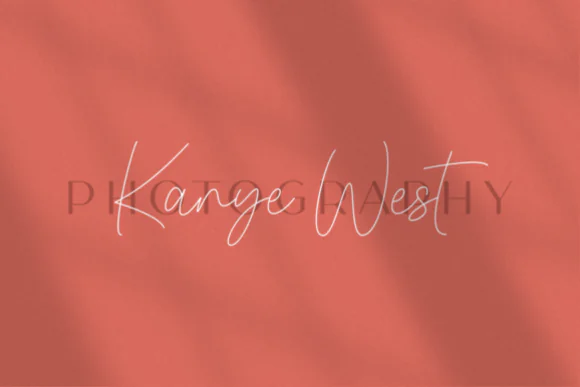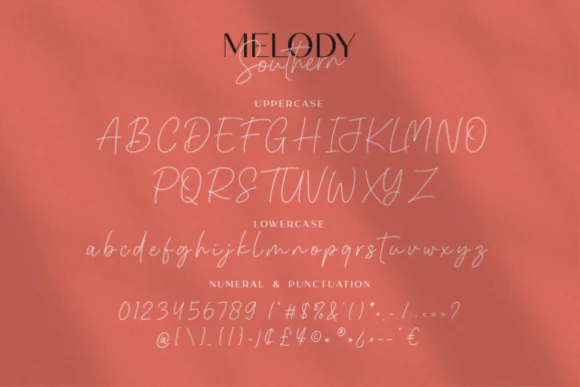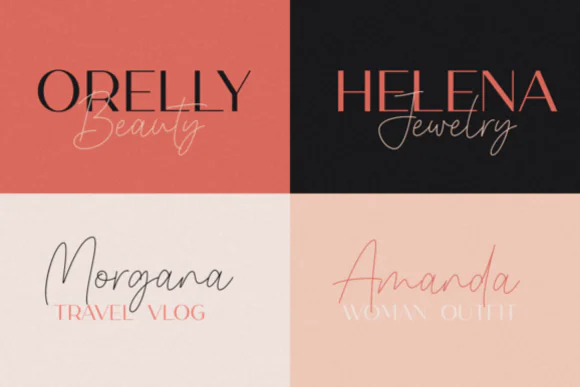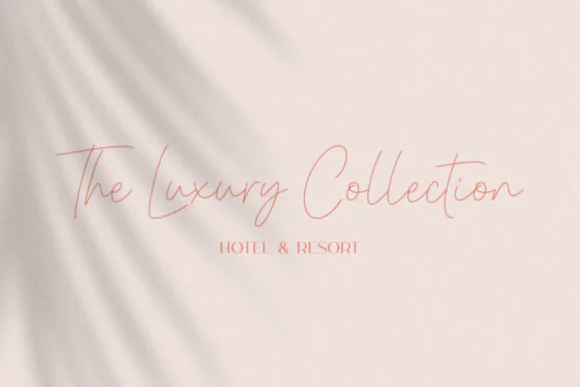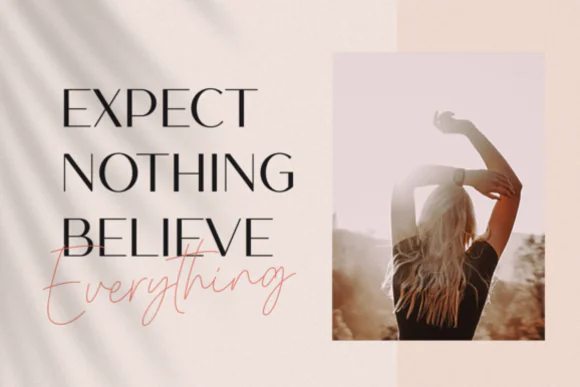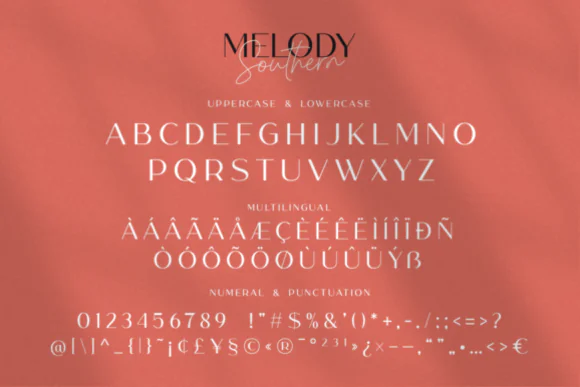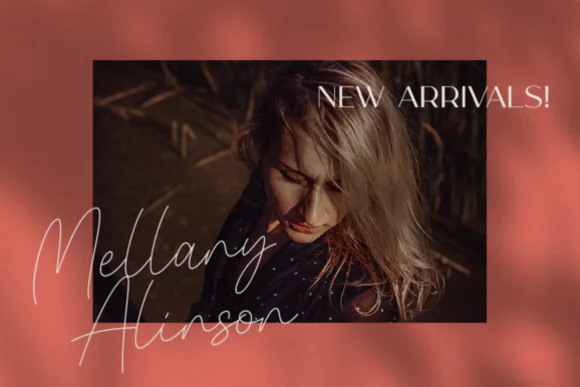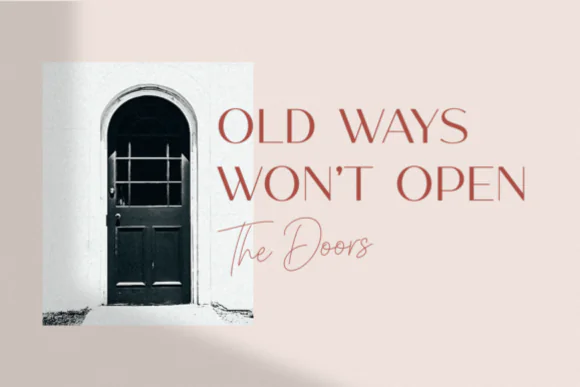
Melody Southern Luxury Font Duo – Elegant All-Caps Sans Serif & Script Typeface Pair for Branding, Logos, Wedding Invitations, Packaging, Fashion Designs & Premium Creative Projects
Create refined, elegant, and high-end typography with Melody Southern Duo Font, a luxury font pairing that combines a graceful all-caps sans serif typeface with a beautiful elegant script font. Designed to look divine when used together, this font duo gives your projects a polished, stylish, and premium visual identity.
The all-caps sans serif font is perfect for clean titles, modern branding, luxury logos, packaging text, business cards, and editorial layouts, while the script font adds softness, beauty, and a romantic handwritten touch. Together, they create a balanced contrast that works beautifully for both professional and decorative designs.
Melody Southern Duo Font is ideal for luxury branding, wedding invitations, bridal stationery, boutique logos, product packaging, beauty labels, fashion graphics, greeting cards, social media posts, quote designs, magazine layouts, printable wall art, and elegant promotional materials. Whether you are designing a classy brand identity, a romantic wedding suite, or premium packaging, this font duo helps your typography feel sophisticated, memorable, and beautifully composed.
Luxury branding, logos, wedding invitations, bridal stationery, boutique designs, product packaging, fashion graphics, beauty labels, greeting cards, social media posts, quote designs, editorial layouts, business cards, printable wall art, and premium marketing materials.
• Luxury font duo with two complementary styles
• Elegant all-caps sans serif font
• Beautiful script font with refined handwritten charm
• Perfect pairing for modern and romantic designs
• Great for branding, logos, weddings, and packaging
• Adds a premium, stylish, and professional look
• Suitable for digital, print, craft, and commercial design projects